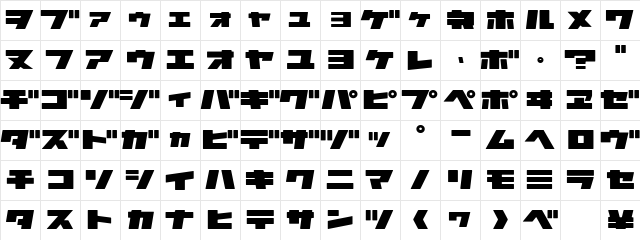
Astro3KT Regular
Design Context for Astro3KT Typeface
Astro3KT is a composed and adaptable typeface that performs quietly and consistently across a wide range of design contexts.